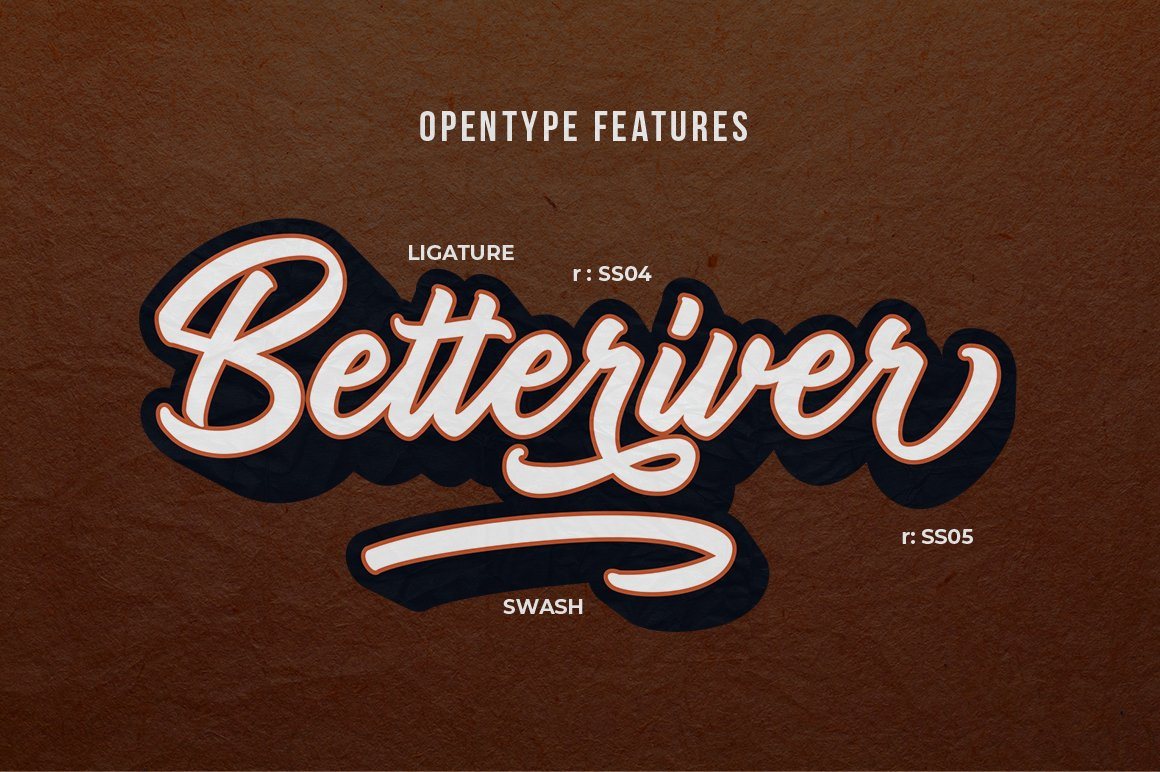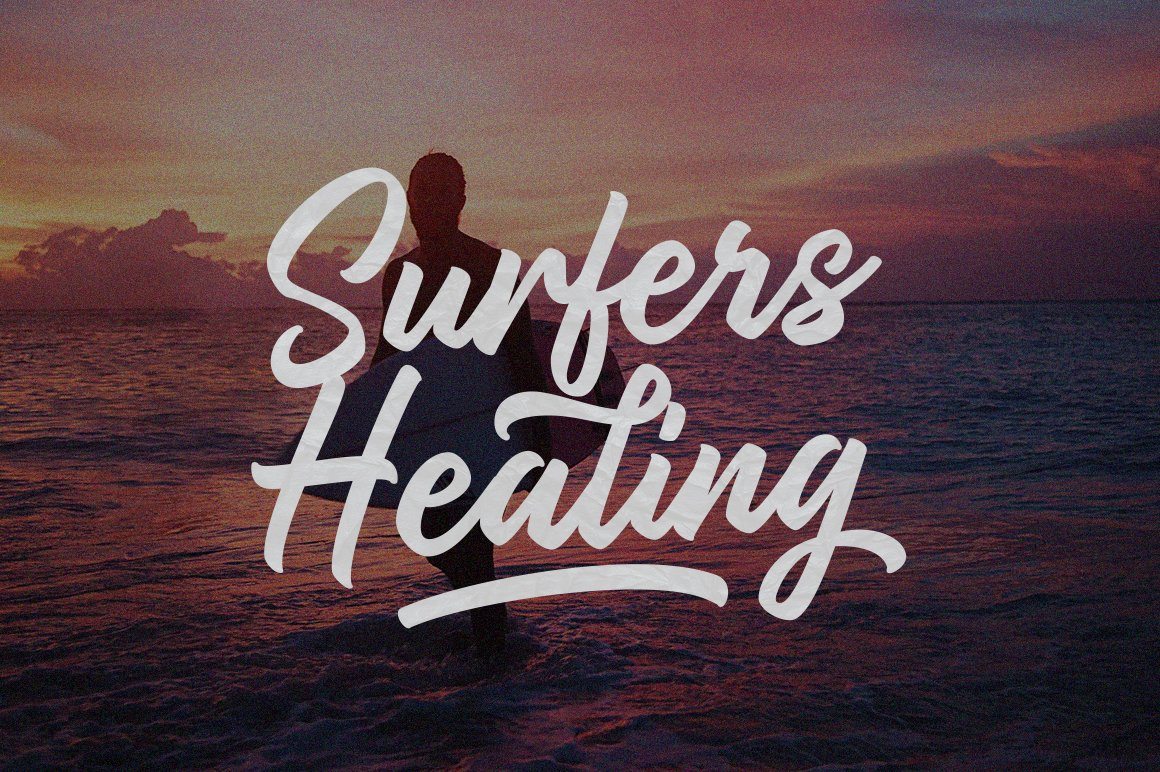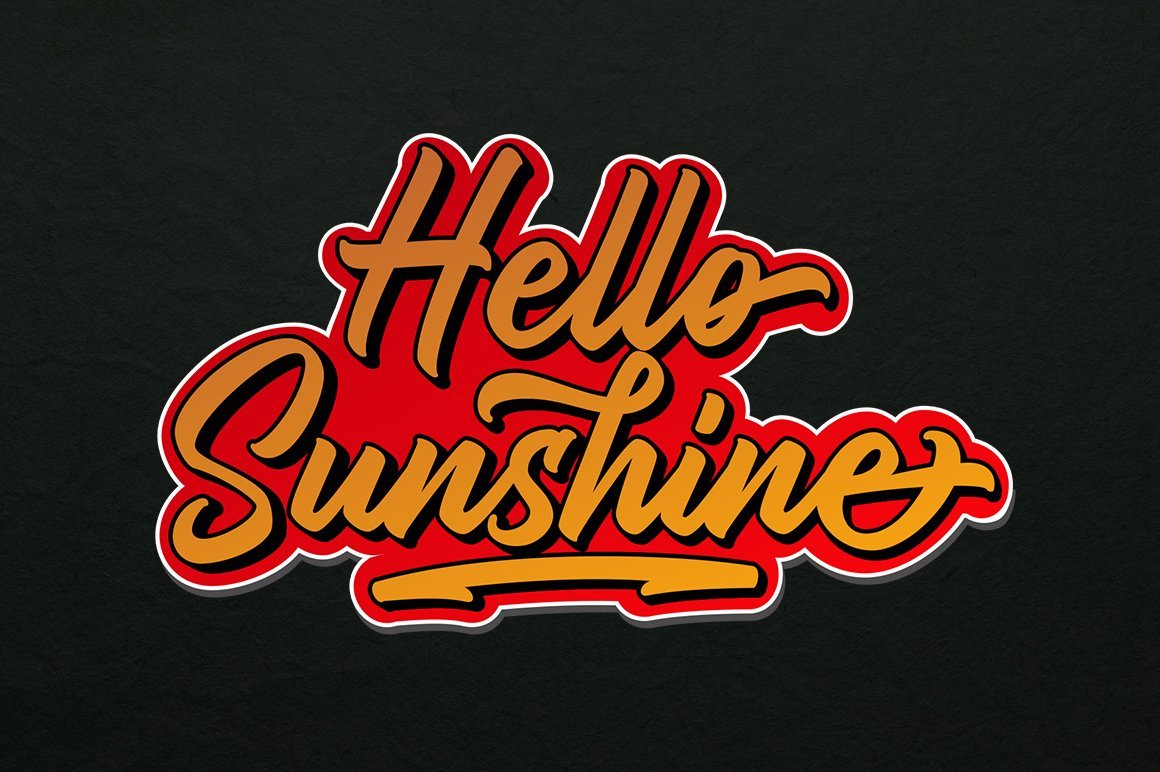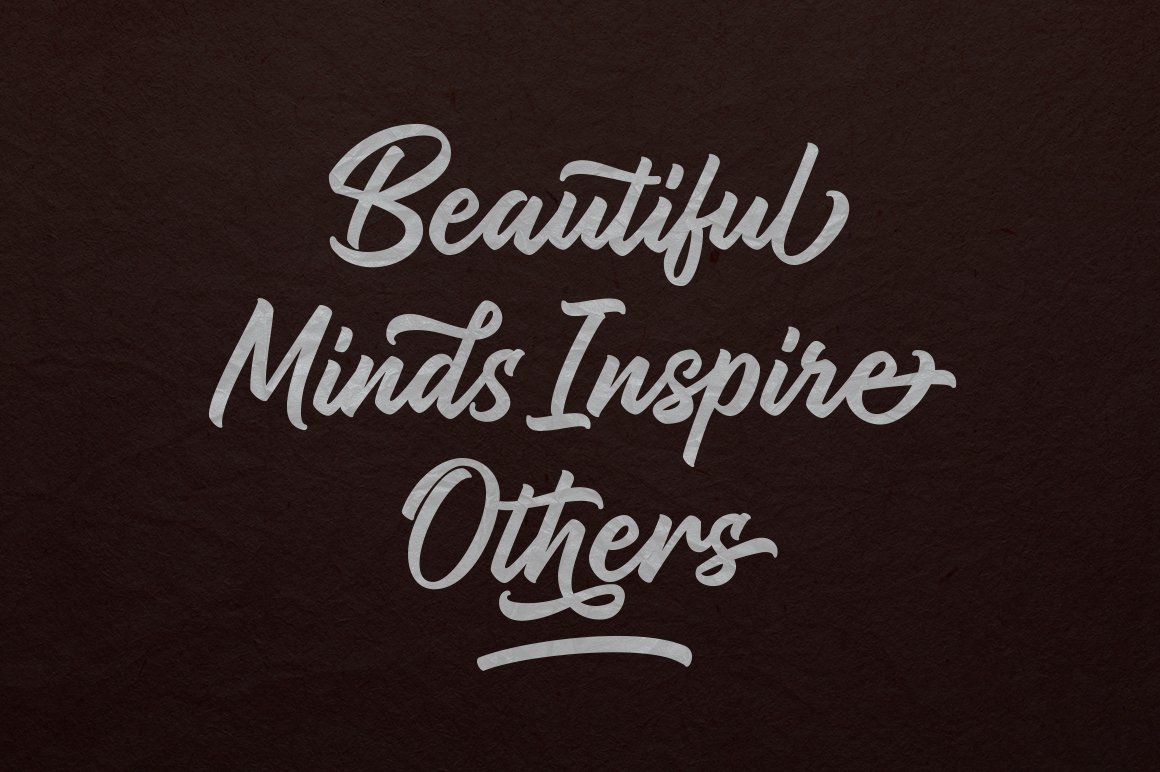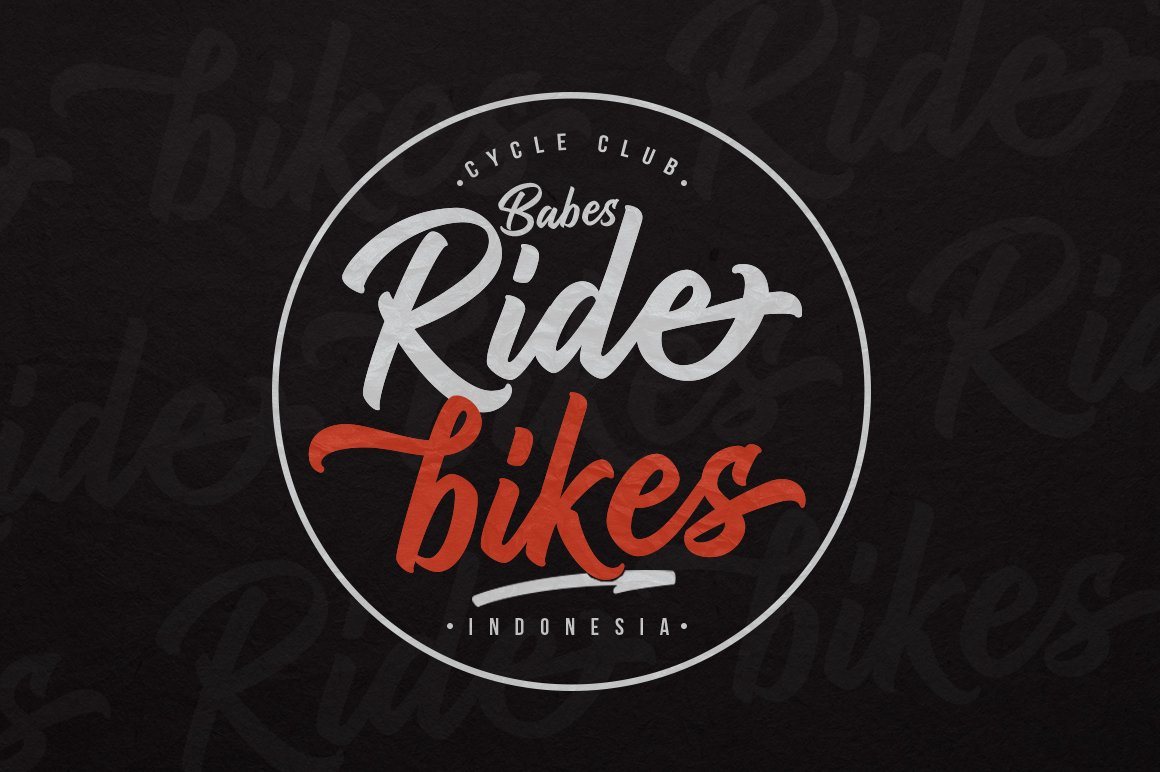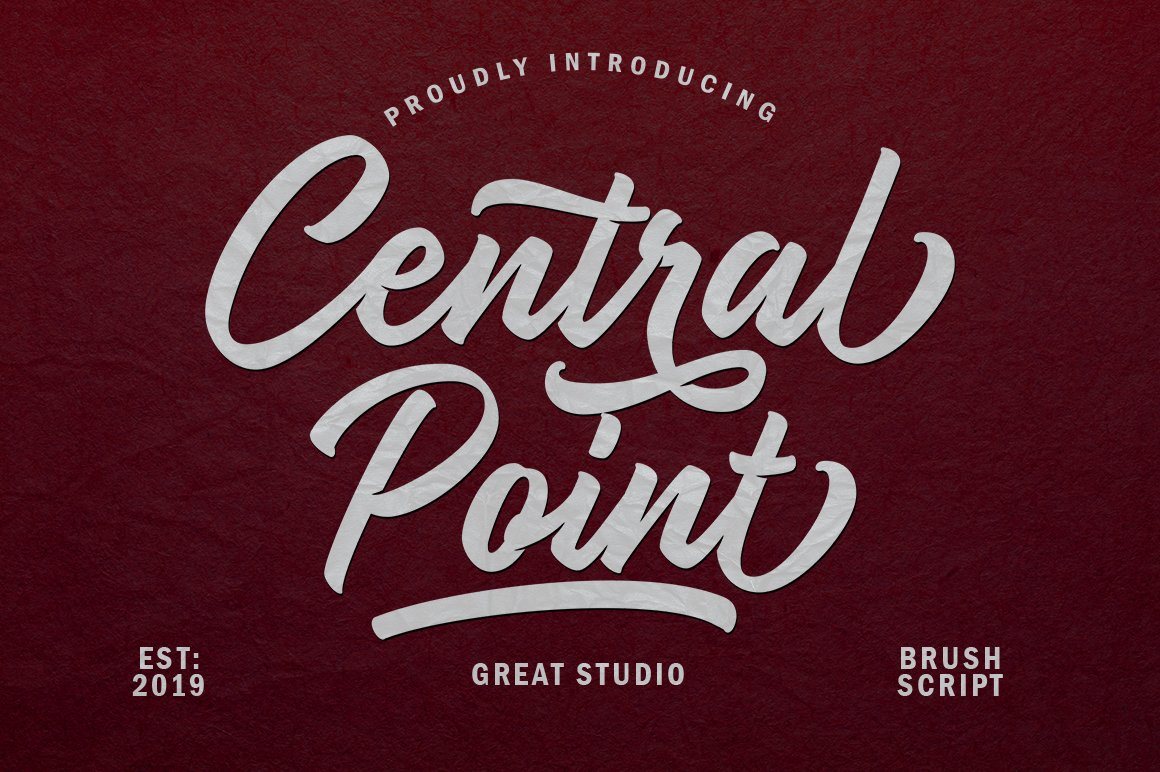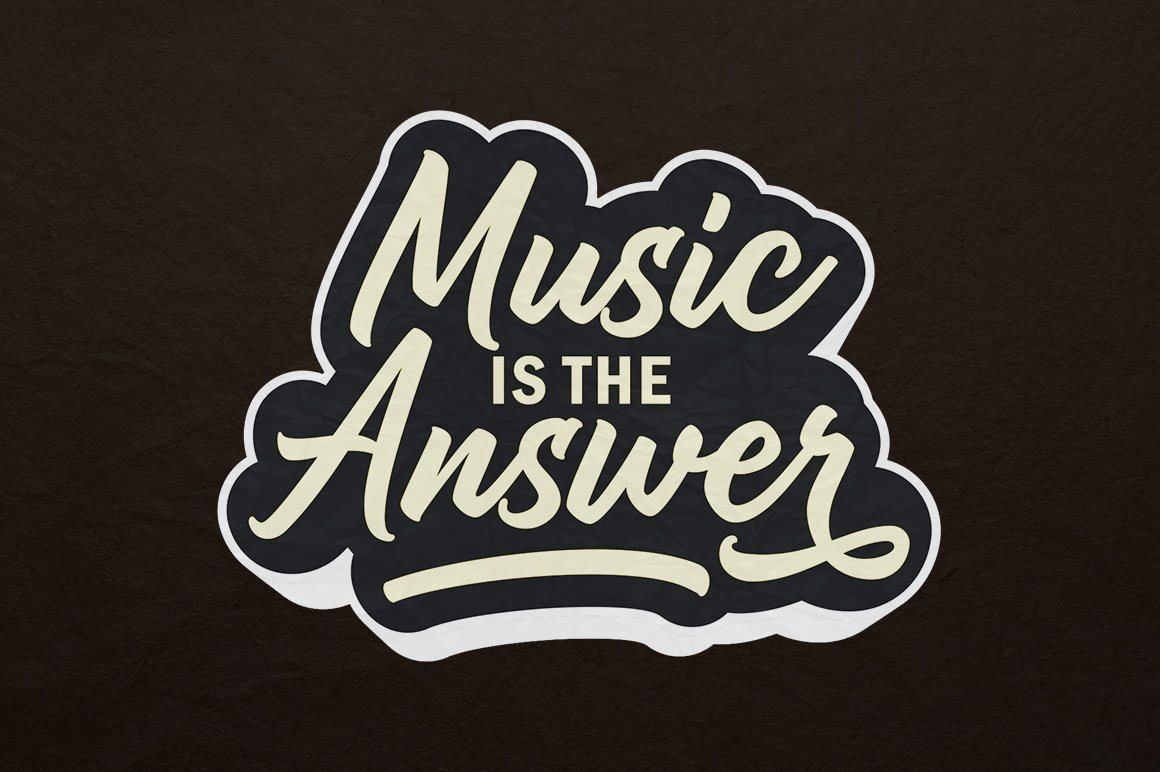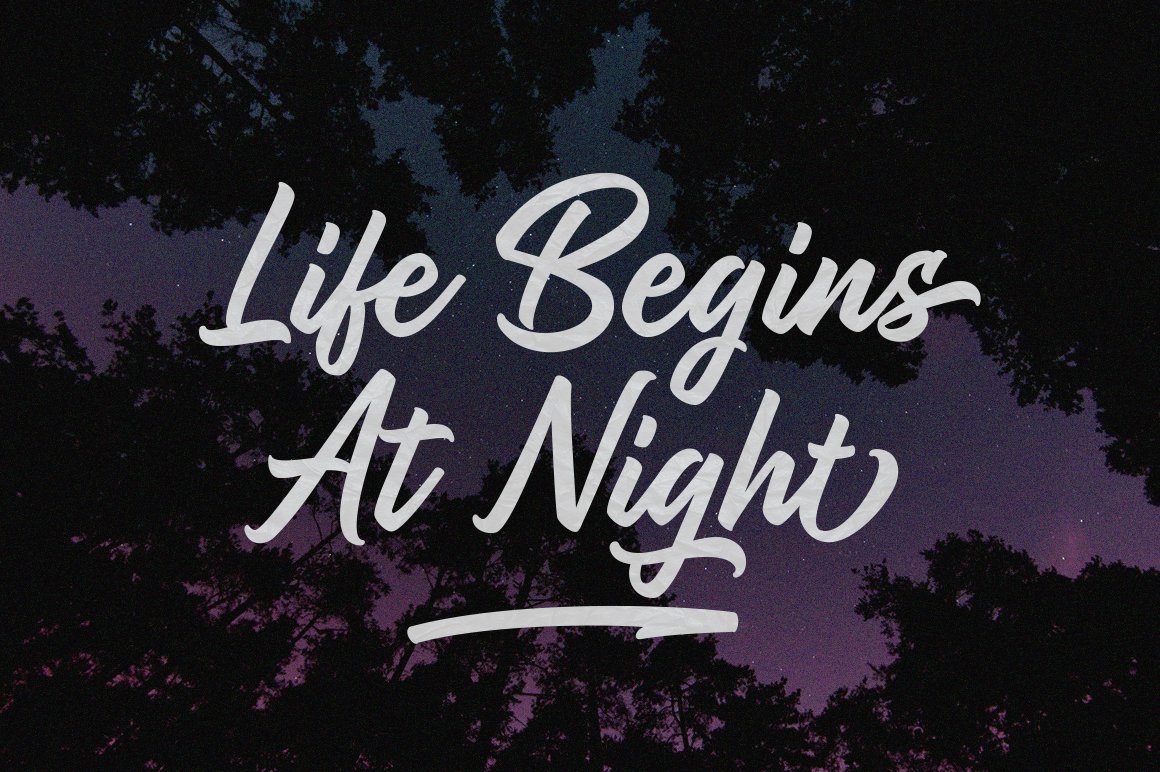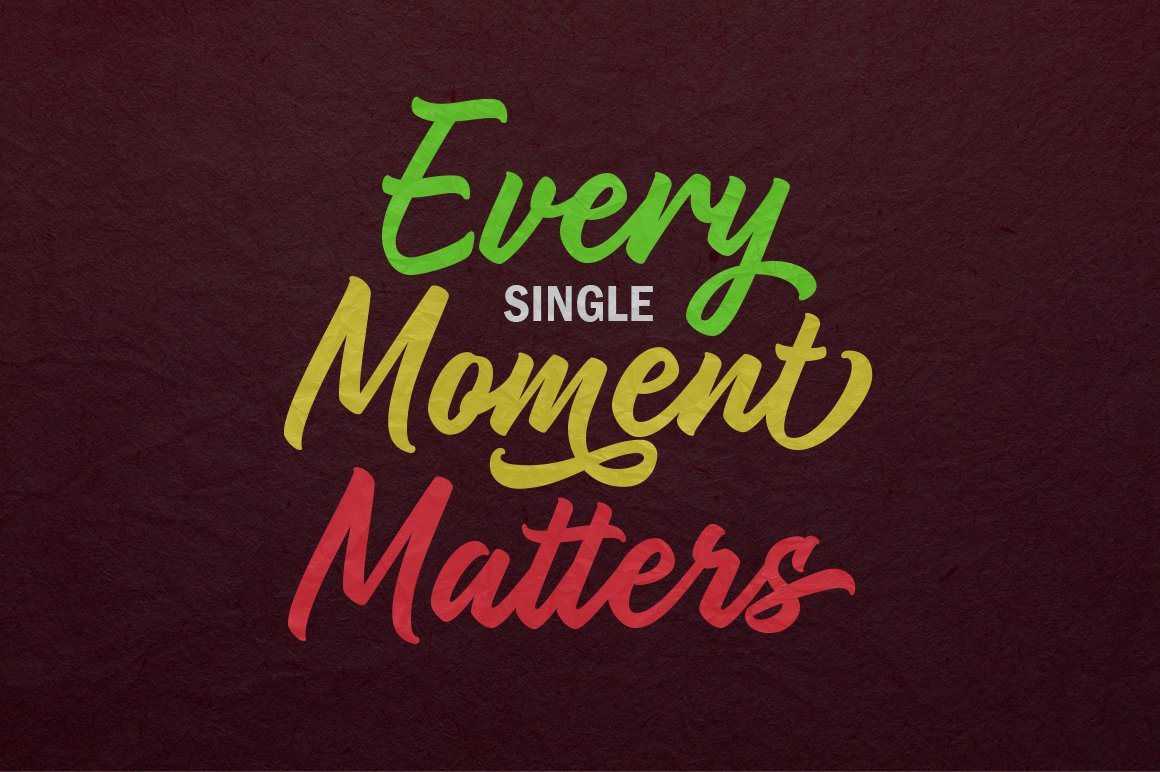
Central Point Script
About Central Point Script
Central Point is a bold font script and a combination of original handwriting styles inspired by handlettering. Central Point This versatile script includes many different alternatives for each lowercase letter, you can see some examples of design results in the preview image above. This typeface works very well for Logo Design, clothing, handwritten quotes, product packaging, headers, posters, merchandise, social media & greeting cards and all your artwork. Central Point is equipped with: Uppercase, lowercase letters, numbers, punctuation & symbols Multilingual support Alternative style Stylistic Set 01 – Stylistic Set 06 Swash Ligature Thank you for viewing our new product, enjoy!